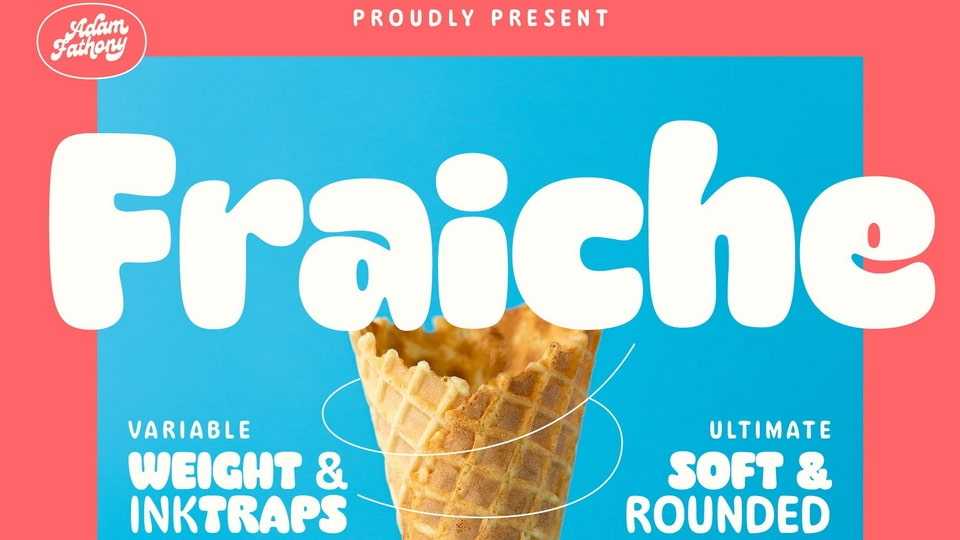
Download Fraiche font, an adorable soft and rounded typeface. Fraiche is available as a variable font with a weight and an ink trap axis.
Designer: Adam Fathony